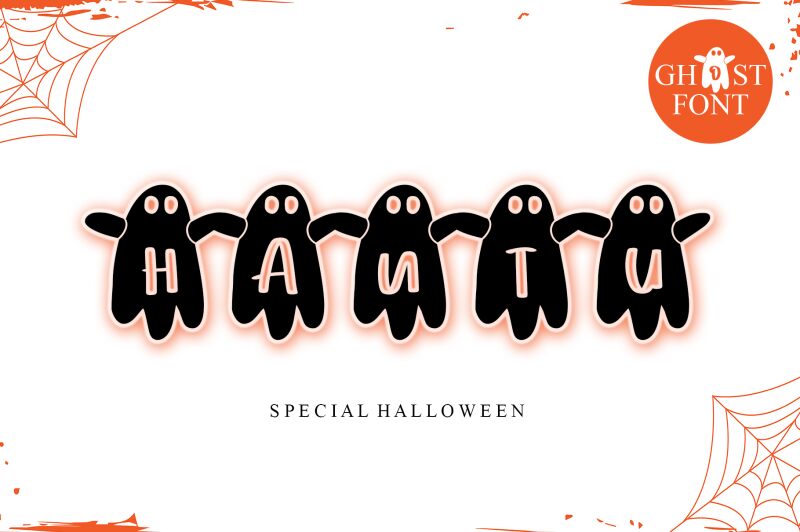
Hantu, a bewitching creation by Letterafa Studio, is a holiday font that embodies the spirit of Halloween. With its spooky and enchanted style, it brings to life the letters in the form of lurking ghosts.
Perfect for thrilling invitations, eerie party decorations, and bone-chilling posters, Hantu adds an enchanting touch to any Halloween project.
Let this haunting font cast its spell on your designs and bring out the ghoulish charm that lies within.